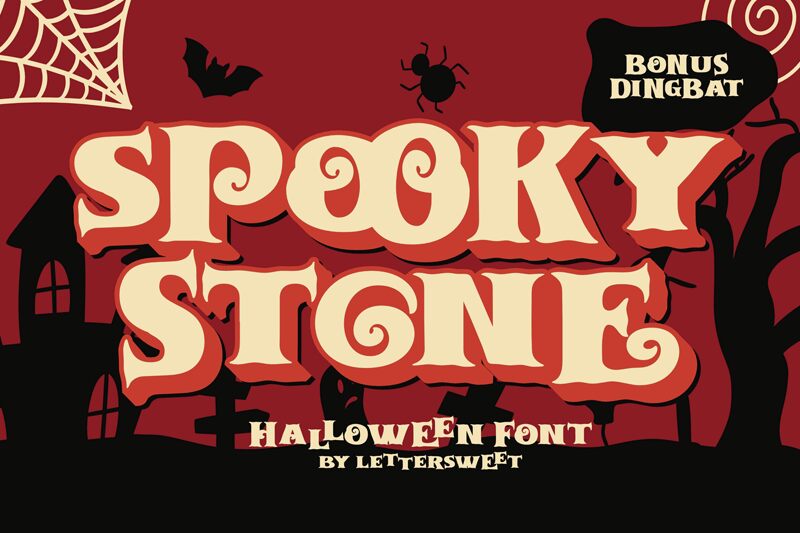
Spooky Stone, designed by Lettersweet Studio, is a holiday font that embodies the spirit of Halloween. With its extra-bold weight and semi-expanded width, this font demands attention and adds a touch of spookiness to any project.
Whether you're designing party invitations, creating eerie posters, or crafting haunted house flyers, Spooky Stone is the perfect choice to capture the essence of this frightful holiday. The duo font includes both a display style and dingbats for added versatility. PUA encoded for effortless access to all its glyphs and swashes, Spooky Stone is destined to elevate your creative ideas to new heights.
Let your imagination run wild with this fun and playful Halloween-inspired typeface!